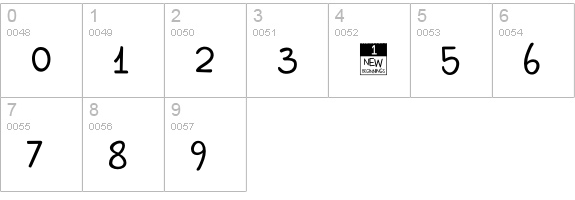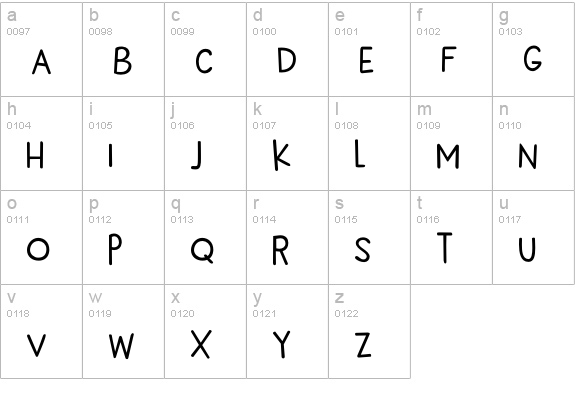
DK New Beginnings Font Details
Introducing DK New Beginnings, a captivating and versatile font that breathes new life into any design project. With its unique blend of elegance and modernity, this font is perfect for creating eye-catching logos, striking headlines, and captivating branding materials. DK New Beginnings is a font that embodies the spirit of fresh starts and limitless possibilities. Its clean lines and graceful curves exude a sense of sophistication, while its contemporary style adds a touch of modernity and trendiness to any design. What sets DK New Beginnings apart is not just its impeccable design, but also its accessibility. This font is freely available to download at FontsMarket.com, allowing designers and creatives to effortlessly incorporate it into their projects without breaking the bank. Whether you're working on a personal blog, a professional website, or a corporate presentation, DK New Beginnings will elevate your design to new heights. Its versatility ensures that it can seamlessly fit into any design concept, making it an ideal choice for both print and digital applications. The wide range of weights and styles available in DK New Beginnings allows for endless opportunities for customization and experimentation. From bold and impactful to delicate and refined, this font can effortlessly adapt to suit any creative vision, adding depth and personality to your designs. With DK New Beginnings, the possibilities are truly endless. Its clean and timeless aesthetic, coupled with its accessibility, make it a font that designers and creatives of all levels can enjoy. So why wait? Unlock your creativity and embark on a new design journey with DK New Beginnings - a font that is as free as it is captivating. Download it now at FontsMarket.com and let your designs shine with a fresh new perspective.